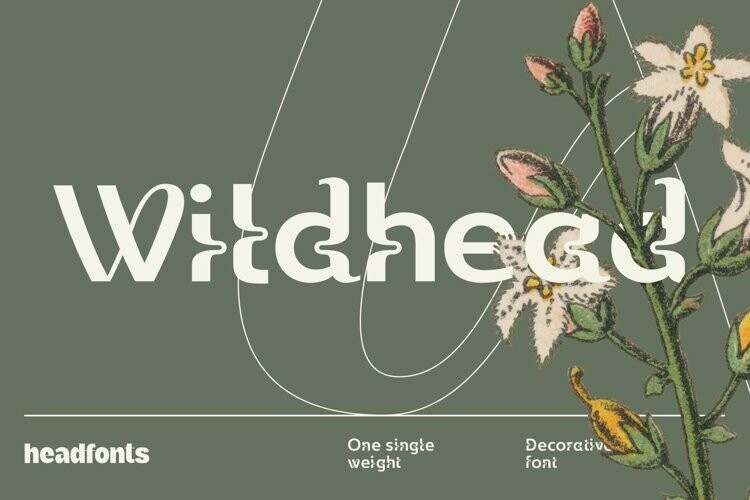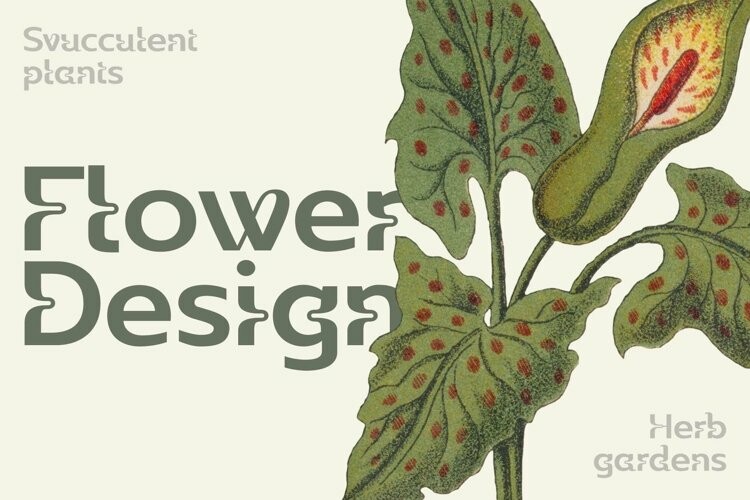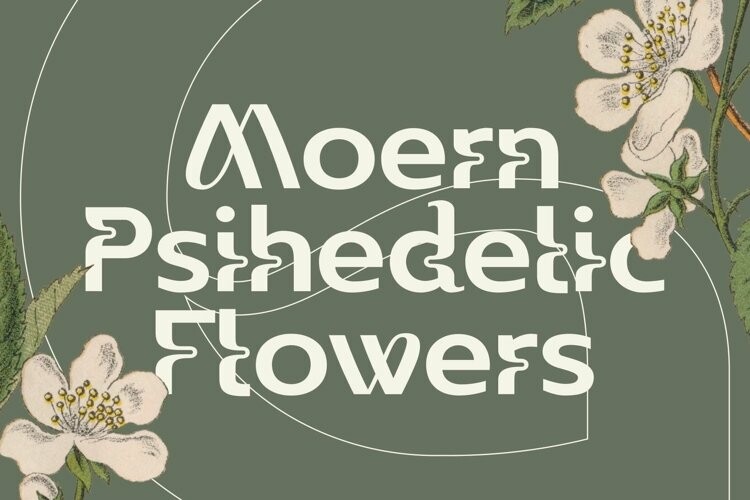
Wildhead Font
Happy to present Wildhead, a regular, sans serif font with a strong, playful personality. Wildhead has curved lines and a modern look, the perfect fit for any stand-out design.
This decorative font features unique sans serif characters, the curves in the inner line of the font give it an interesting touch.
Wildhead is an uppercase and lowercase font with standard Latin script support, numerals, and punctuation. This wild font with its highly stylized, unique glyphs, is perfect for any contemporary design with a sassy twist.